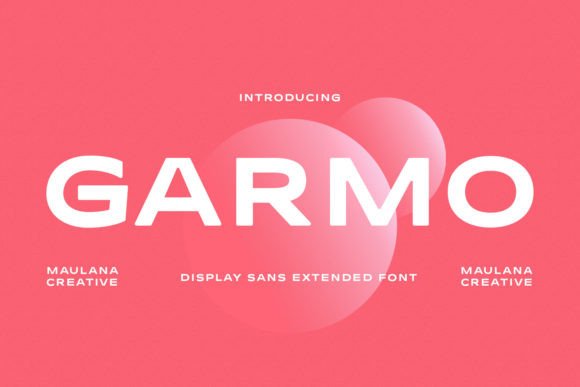
Discover the Alluring Charm of Garmo Font: A Sans Serif Masterpiece for Striking Visual Impact
In the realm of typography, Garmo Font emerges as a captivating sans serif masterpiece, meticulously crafted to leave an indelible mark on your creative endeavors. Its clean lines and modern design dance in perfect harmony, creating a visual symphony that commands attention and ignites imagination.
With Garmo Font at your disposal, you'll find yourself immersed in a world of limitless possibilities. Whether you're crafting captivating headlines that demand attention or designing logos that leave a lasting impression, this font is your ultimate weapon. Its distinct character shines through in advertising campaigns, effortlessly captivating audiences and leaving them spellbound.
Beyond its aesthetic appeal, Garmo Font is a font of unparalleled versatility. Its adaptability extends from the digital realm to the physical world, seamlessly transitioning from website designs to print materials. Unleash your creativity and let Garmo Font elevate your projects to new heights, leaving a lasting impression on all who encounter it.
For those with a penchant for vertical type, Garmo Font reigns supreme. Its structure is meticulously engineered to create visual harmony and impact when used vertically. Experience the thrill of transforming ordinary text into captivating columns that dance across the page, captivating readers and leaving them craving more.
Join the ranks of creative visionaries who have embraced the allure of Garmo Font. Allow its captivating charm to infuse your work with a touch of elegance and distinction. With Garmo Font as your creative companion, you'll embark on a journey of visual storytelling that will leave audiences mesmerized.